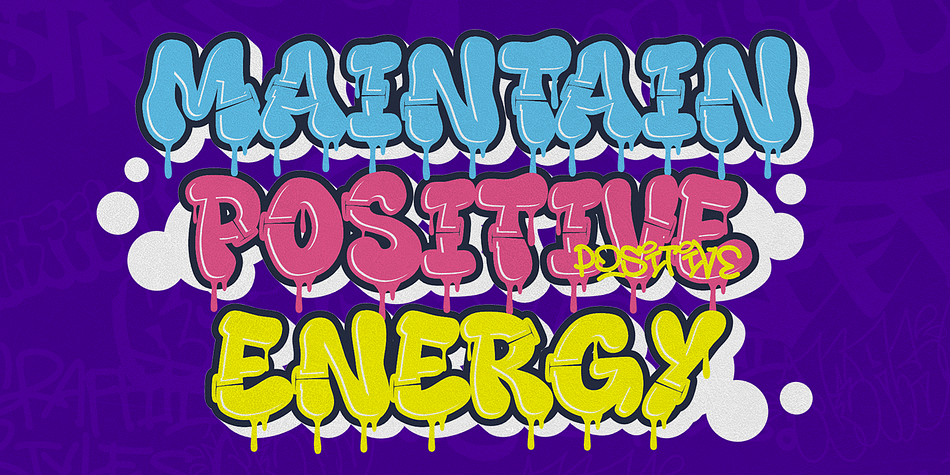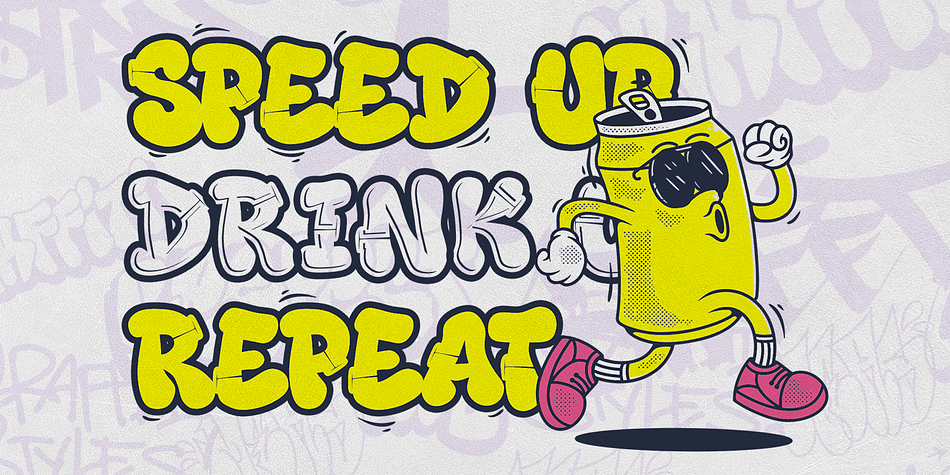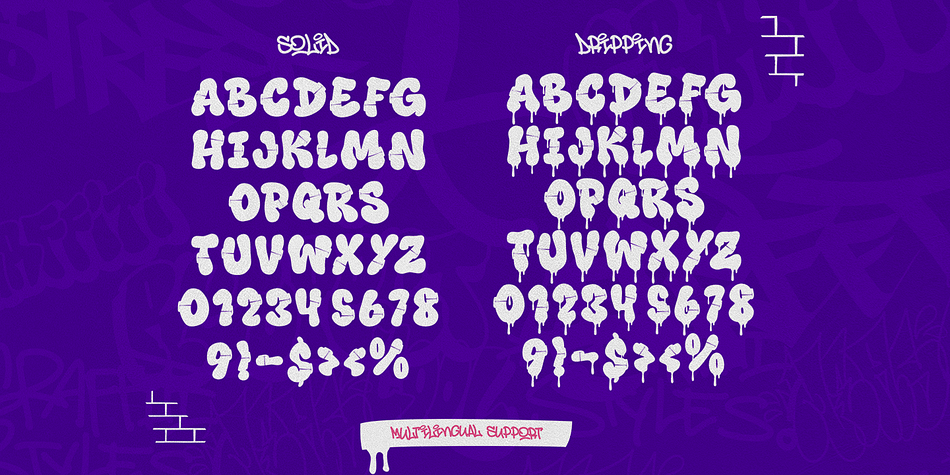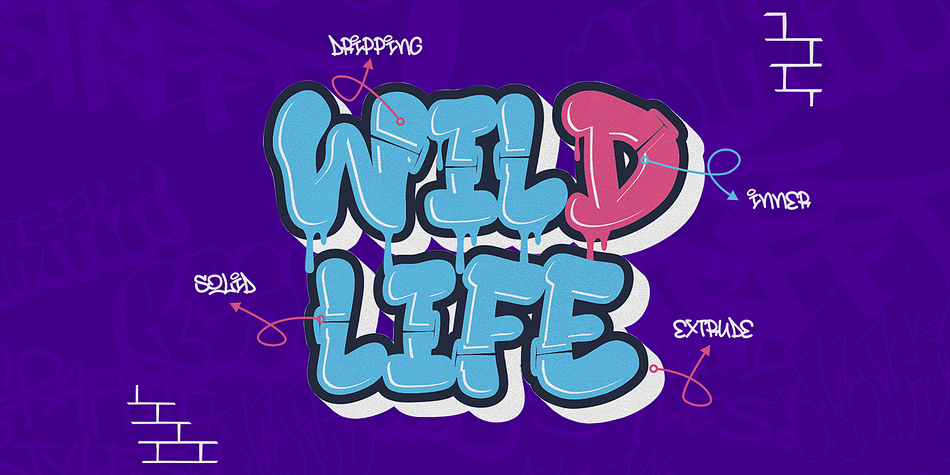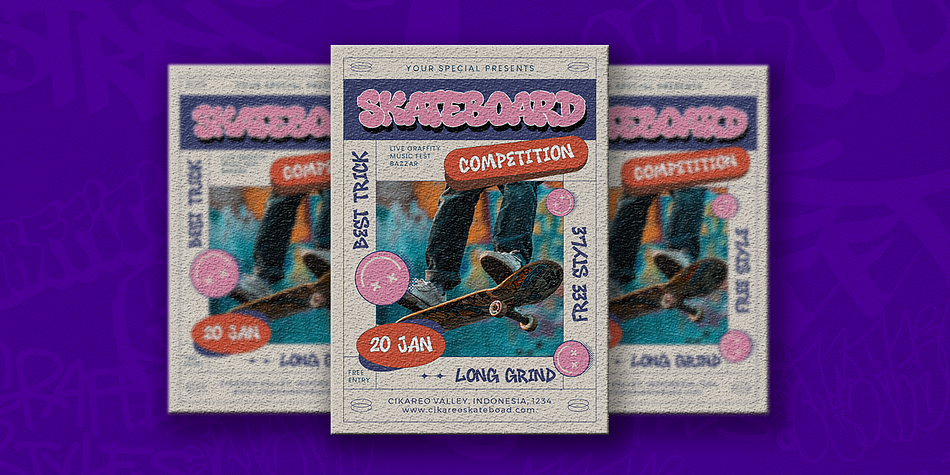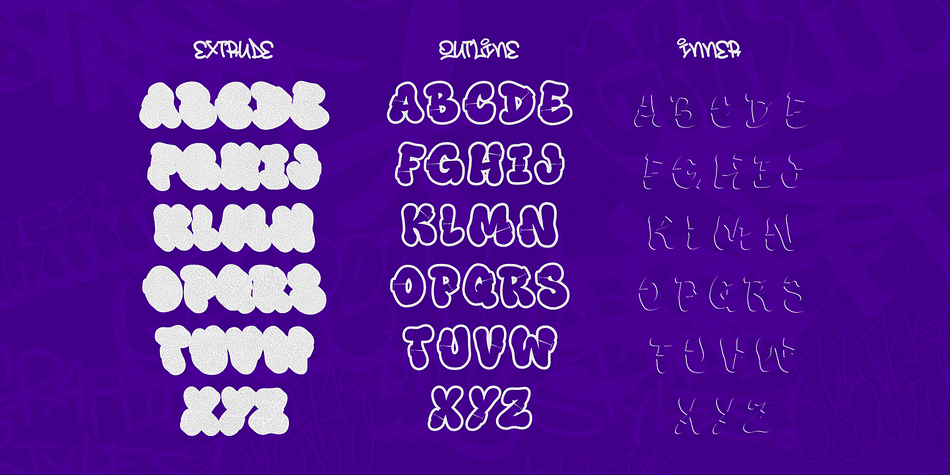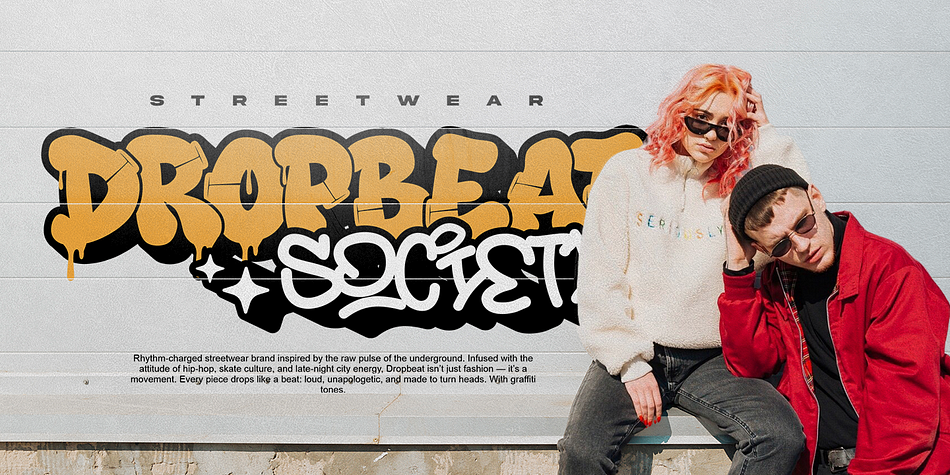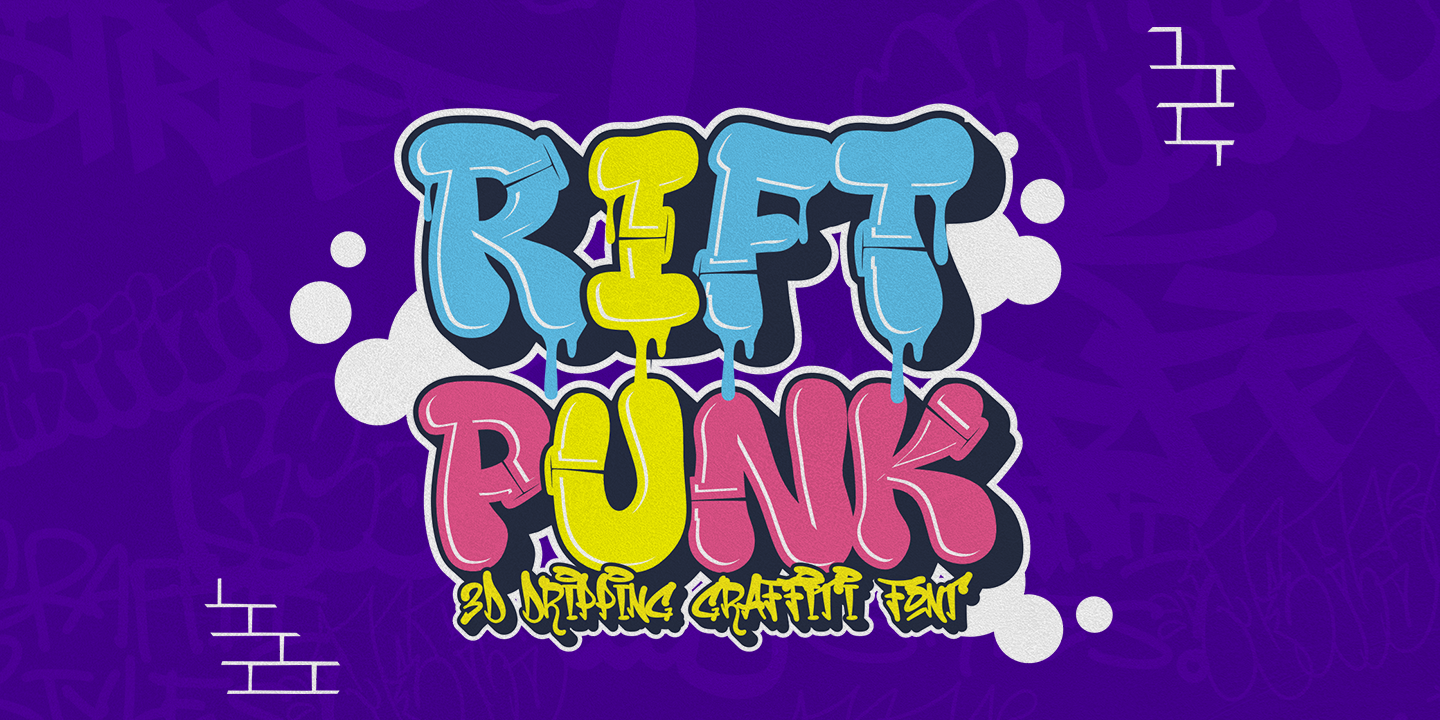
RIFT PUNK
Rift Punk is a brush display font family. This typeface has five styles and was published by Cikareotype Studio.
Rift Punk is a bold and playful graffiti display font featuring rounded characters with subtle decorative graffiti details. This font is crafted with a layered 3D style, giving your designs a strong urban and street art personality. Rift Punk comes in 3 versatile styles: Solid/Clean, Dripping, and Outline, plus Extrude and Inner Shadow layers to boost your design depth and versatility.
Perfect for urban branding, t-shirt designs, hip-hop event posters, stickers, skate graphics, and craft projects with Cricut or Silhouette. Whether you’re creating street-style visuals or bold youth-centric designs, Rift Punk adds the energy and street soul you need!